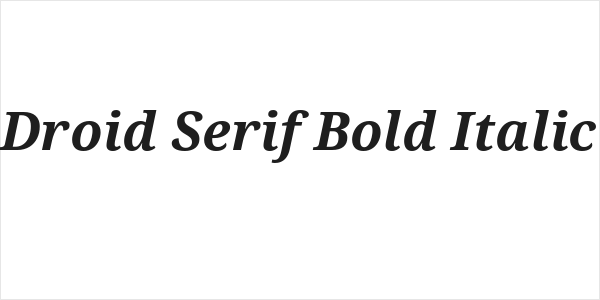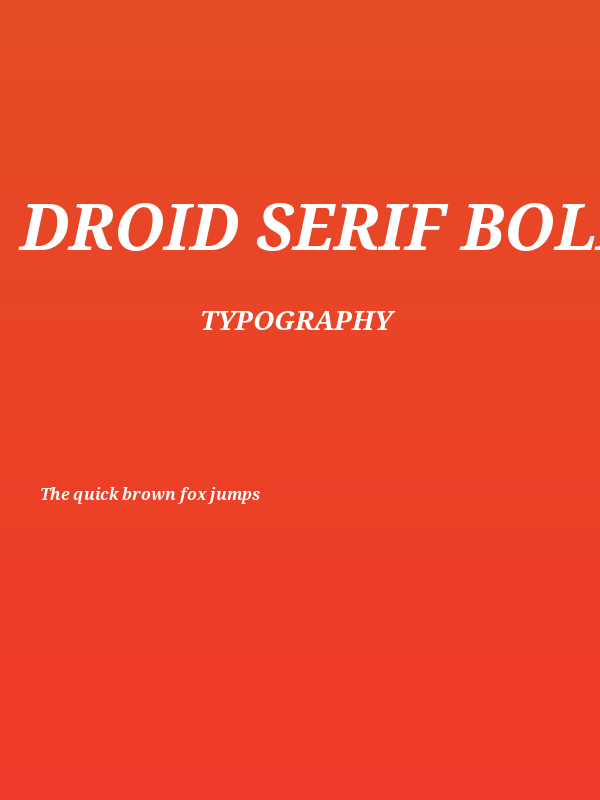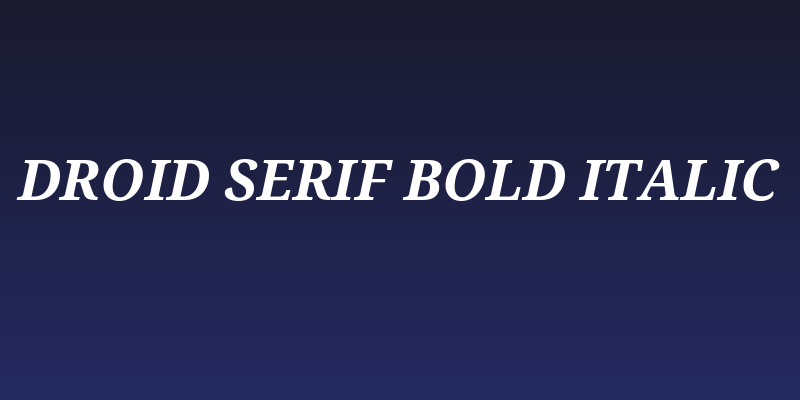
Droid Serif Bold Italic Font
Droid Serif Bold Italic Description
This font features a classic serif style with a bold and italicized appearance, offering a strong and elegant look. The serifs are pronounced, providing a traditional feel, while the italic slant adds a dynamic and sophisticated touch. The bold weight ensures that the characters stand out, making it suitable for attention-grabbing headlines or titles. The font maintains a balanced contrast between thick and thin strokes, enhancing readability and visual interest. Its overall style is a blend of classic and modern elements, making it versatile for various design applications.
| Proposed Projects | Ideal for editorial design, book covers, formal invitations, and branding projects that require a touch of elegance and authority. |